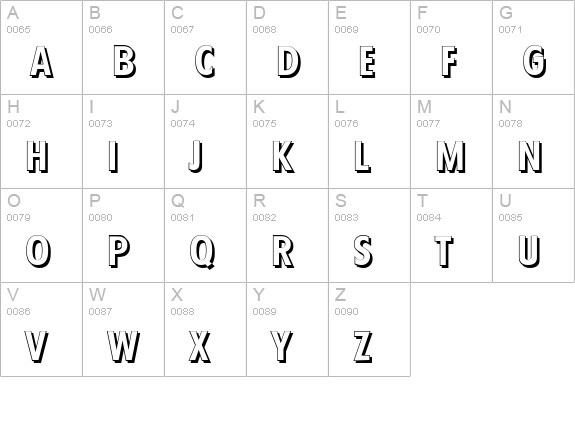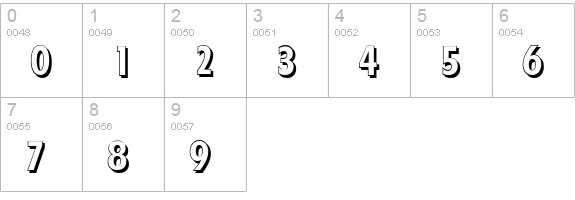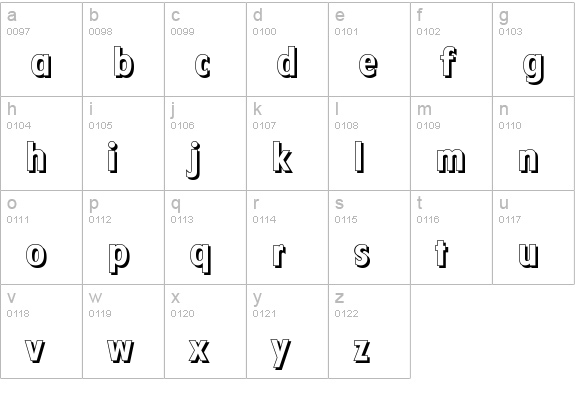
FloridaShadow-Bold Font Details
FloridaShadow-Bold is a strong, high-contrast variant in the FloridaShadow typeface family \xE2\x80\x94 well suited to headlines, attention-grabbing titles, and strong calls-to-action.
FloridaShadow-Bold is a striking and eye-catching font that exudes confidence and boldness. With its sharp edges and clean lines, this font is perfect for making a statement in any design project. Whether you are creating a poster, logo, or website, FloridaShadow-Bold is sure to grab attention and leave a lasting impression. The best part? FloridaShadow-Bold is available for free download at FontsMarket.com. You can easily access this dynamic font and enhance your designs without any additional cost. Don't miss out on the opportunity to elevate your projects with this modern and impactful typeface. Download FloridaShadow-Bold today and take your designs to the next level!